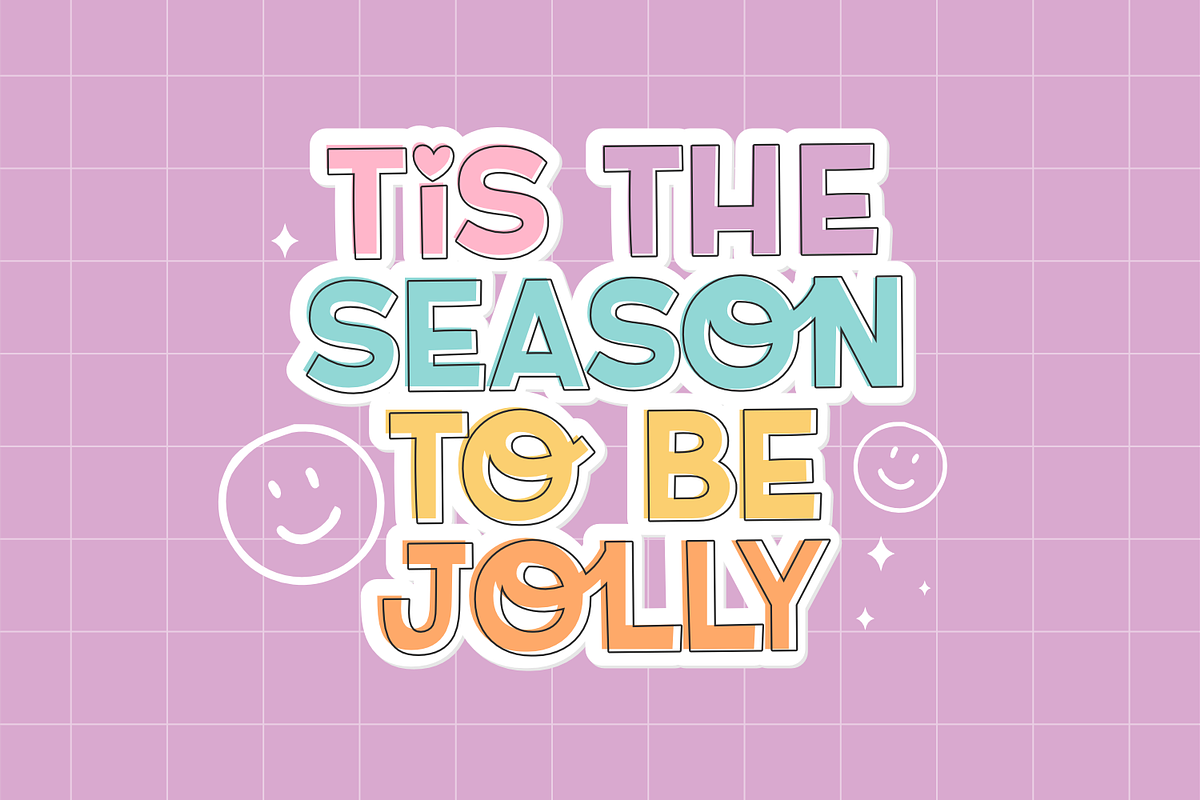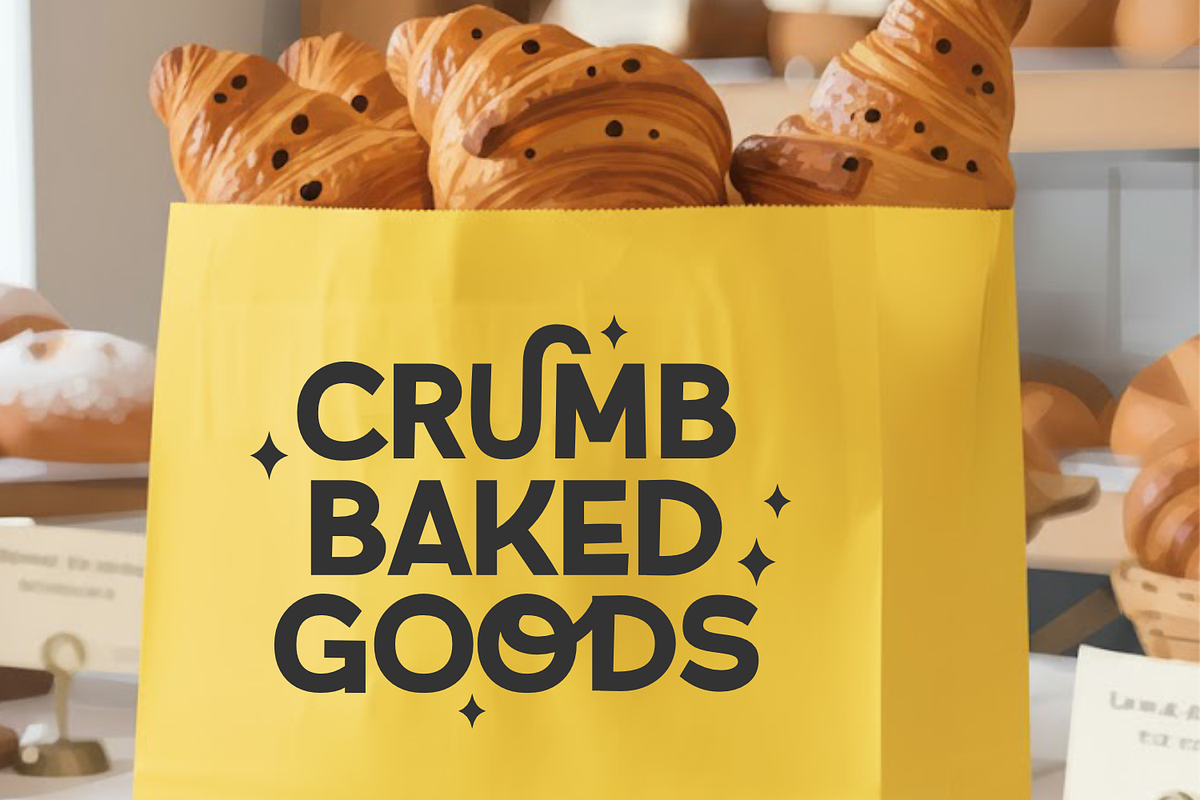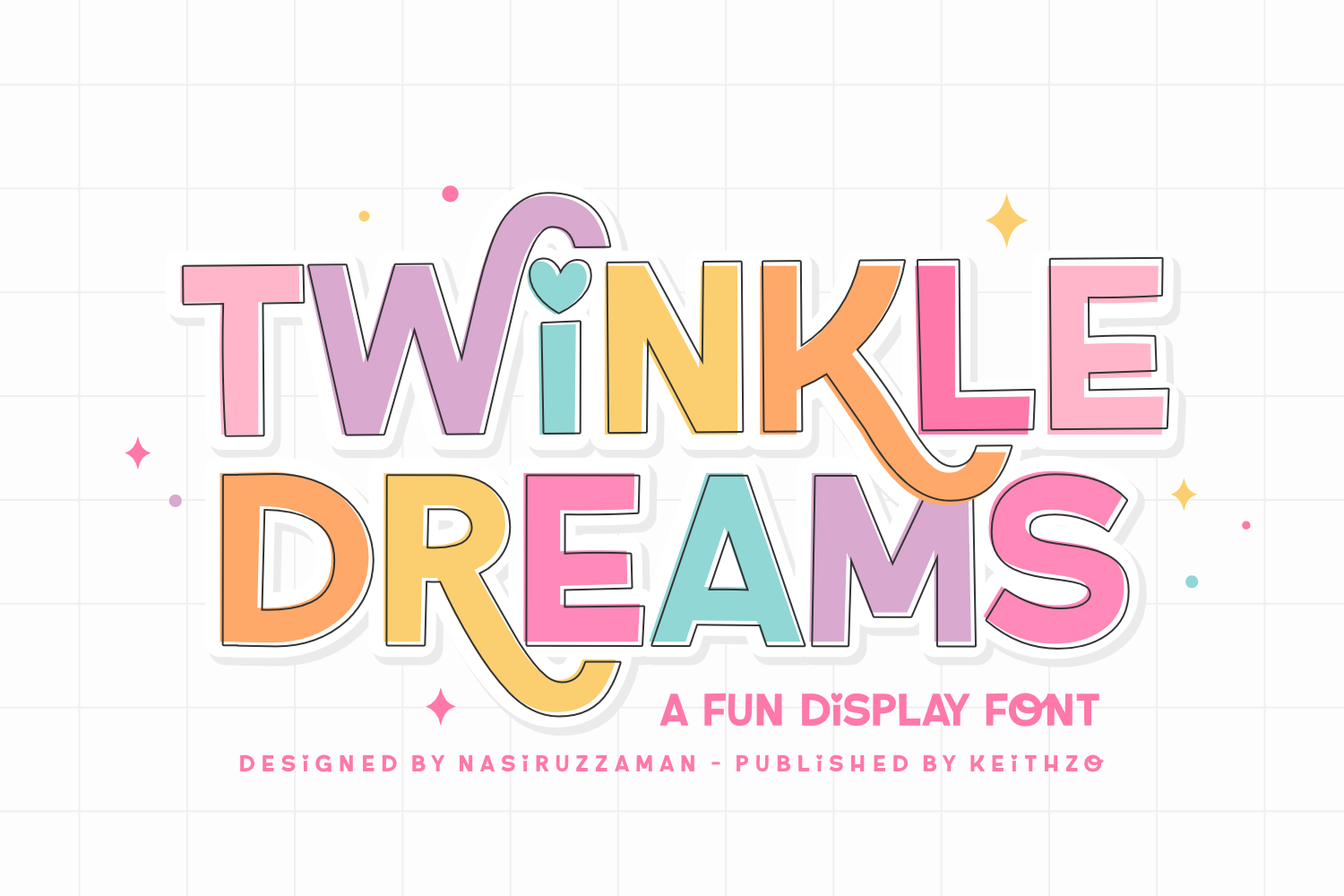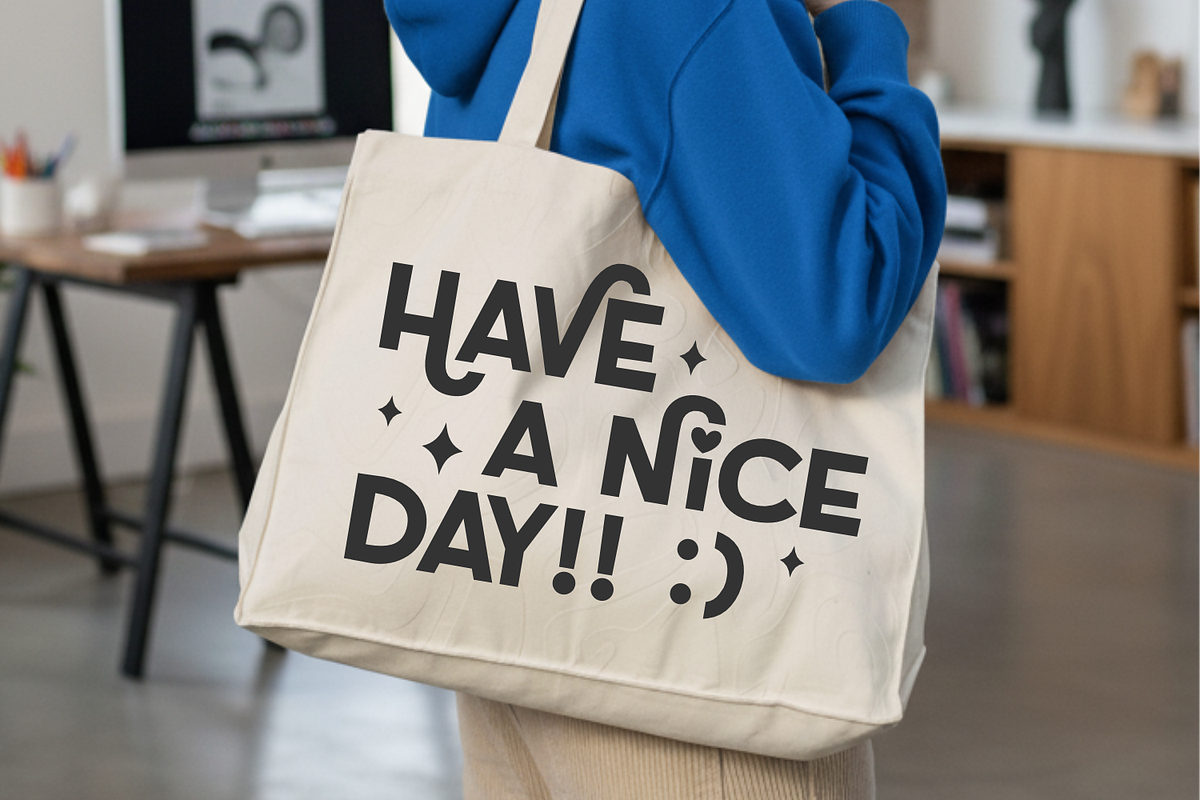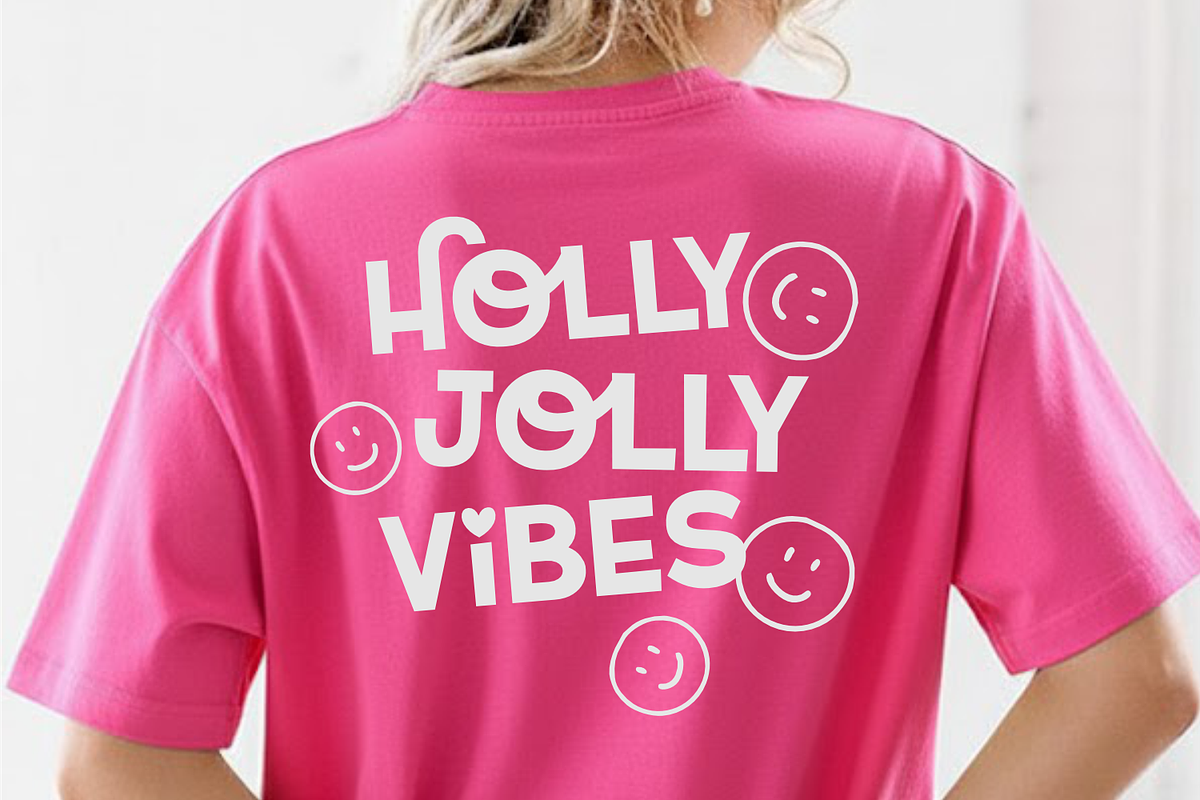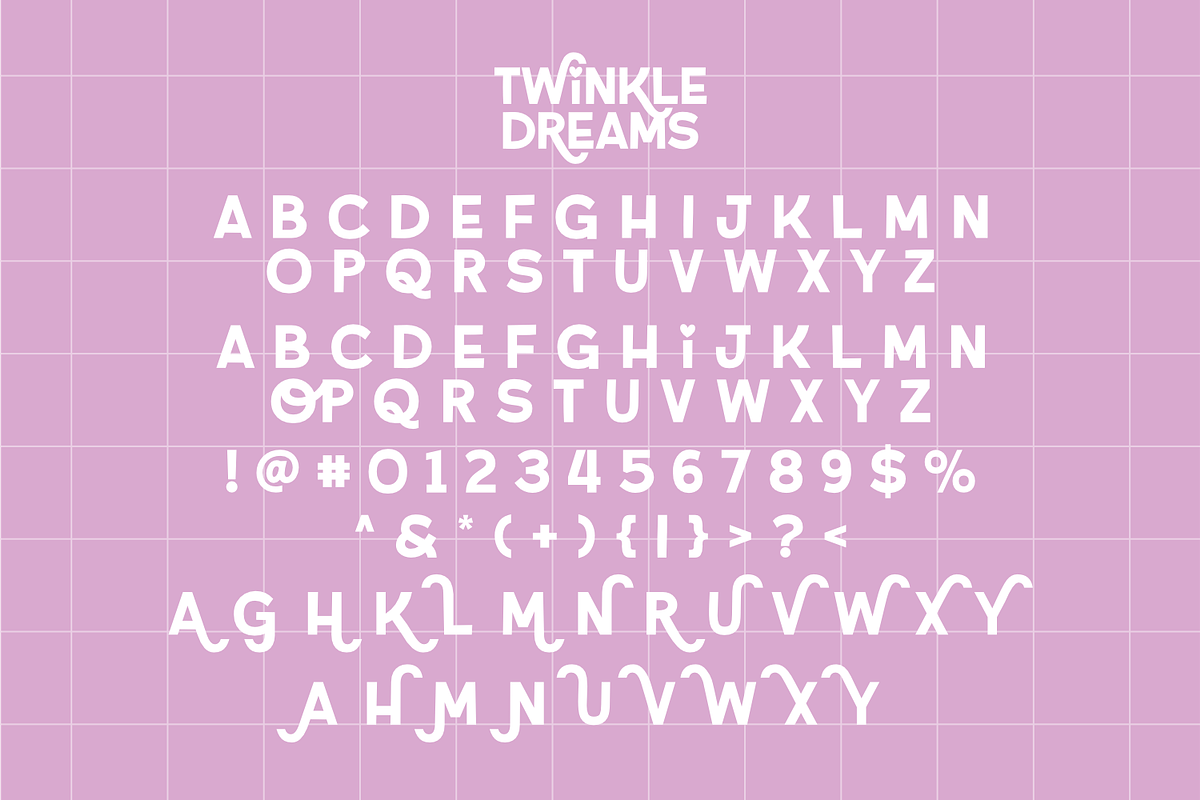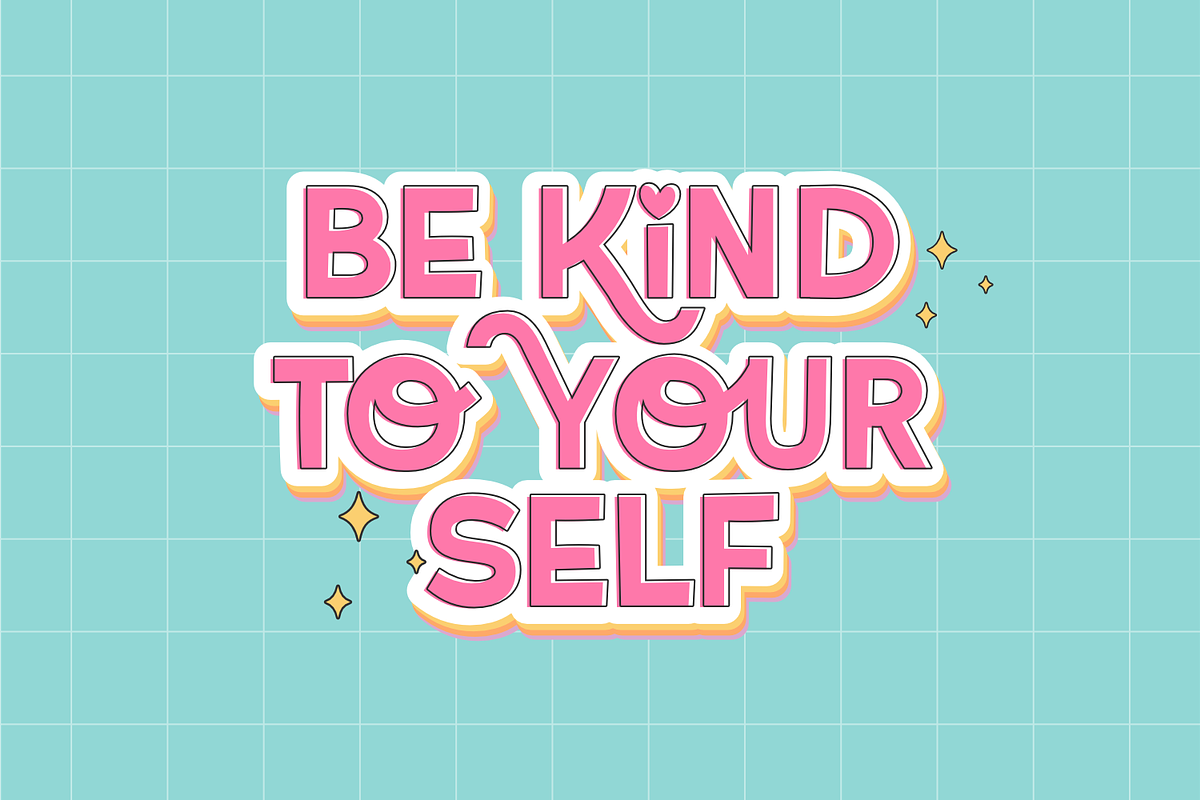
Twinkle Dreams - Christmas Font
Experience the joy of design with Twinkle Dreams – a playful and spirited display font that’s stunningly perfect for capturing the holiday merriment and endearing children’s themes.
Uniquely crafted, Twinkle Dreams features an extensive set of all-uppercase characters that maintain a friendly, welcoming feel. Adding to its charm, the font includes intuitively designed lowercase letters that offer a distinct sense of whimsy.
This font is also richly adorned with thoughtful OpenType features, extending to charming swashes and artistic ligatures that allow for beautiful customizations. Let your creative imagination soar and bring your designs to life with Twinkle Dreams!